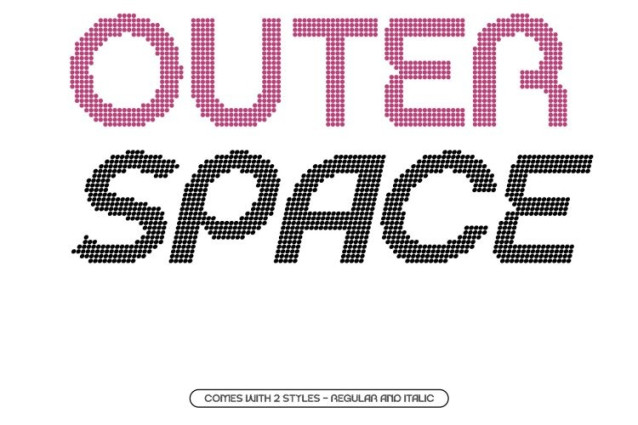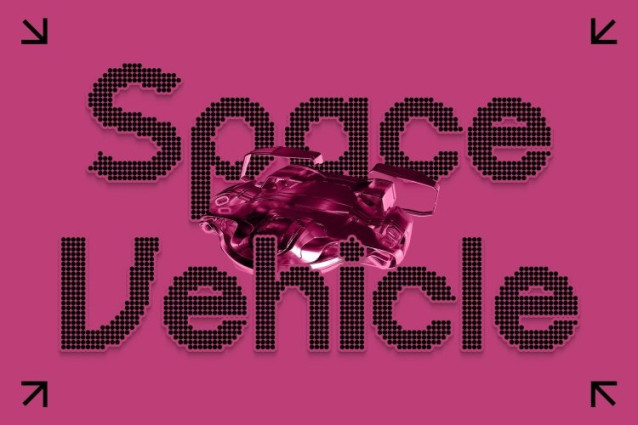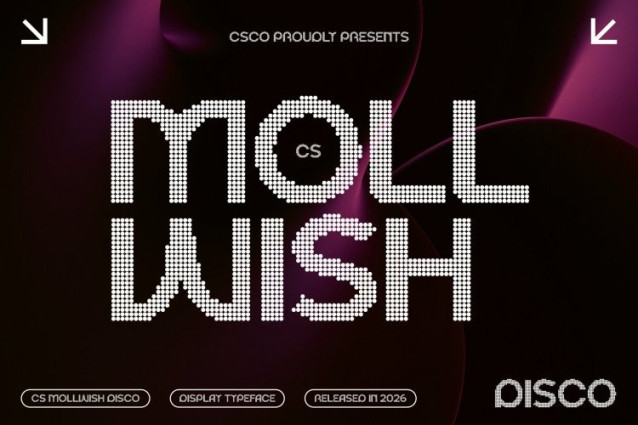
CS Mollwish Disco Font
CS Mollwish Disco Font – This transforms its clean, geometric sans serif structure into a vibrant dotted display inspired by the glamour of disco lights. Each letter is constructed with radiant dot patterns that reflect the rhythm and sparkle of a lively dance floor, while maintaining the confident, structured form of the original design.
Geometric Precision with Playful Glow
The sleek geometric shapes remain clear and balanced, ensuring strong readability and visual impact. The addition of disco-style dots introduces playful movement and texture, turning the structured forms into glowing typographic elements that feel energetic and celebratory.
Futuristic Edge with Party Atmosphere
This font blends its forward-thinking, modern style with festive illumination. The contrast between sharp geometric construction and luminous dotted texture creates a striking aesthetic modern, stylish, and full of dynamic energy.
Perfect for Bold and Contemporary Designs
Ideal for posters, digital branding, event promotions, music graphics, and modern creative campaigns, excels in attention-grabbing headlines and display typography. It brings together clarity, personality, and festive glamour in one memorable design.